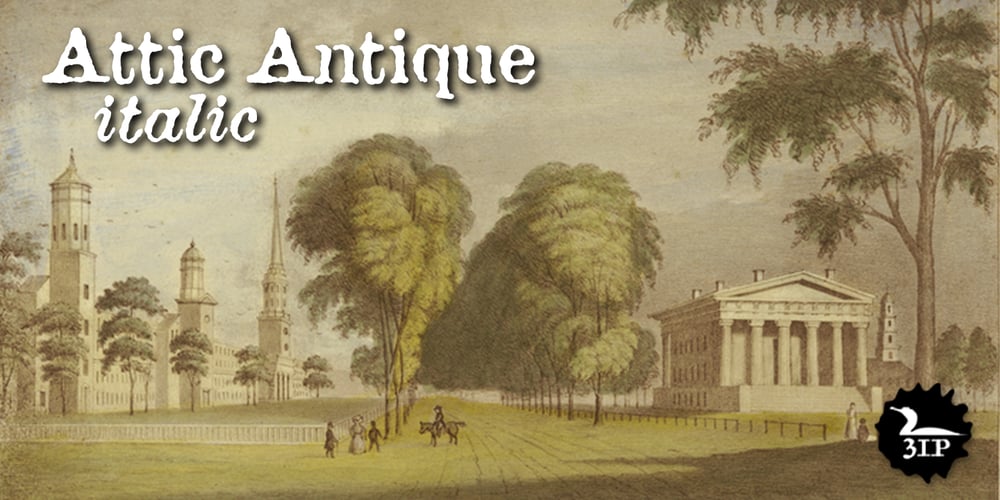
Attic Antique
Attic Antique Font Family was designed by published by Three Islands Press. Attic Antique contains 2 styles and family package options. Attic Antique by Three Islands Press. Flipping through a friend’s old hardbound collection of John Burroughs nature essays a while back, I thought it’d be fun to try to develop a typeface with the same uneven, imperfect look to it. I picked and chose among various printed characters, enlarged them somewhat with a photocopier, then hand-rendered each. Had to custom-make some of the accents and symbols, then added a couple goofy dingbats just for the heck of it. The result: an amazingly legible serif family akin to the Century faces.